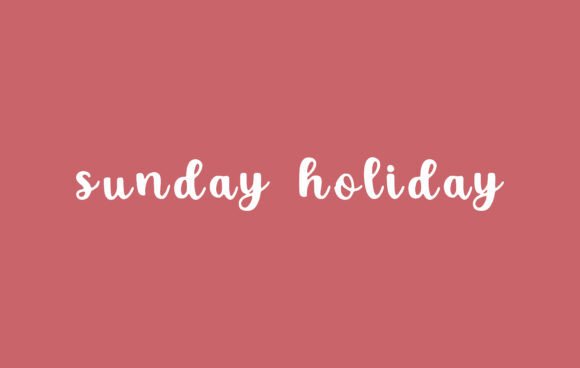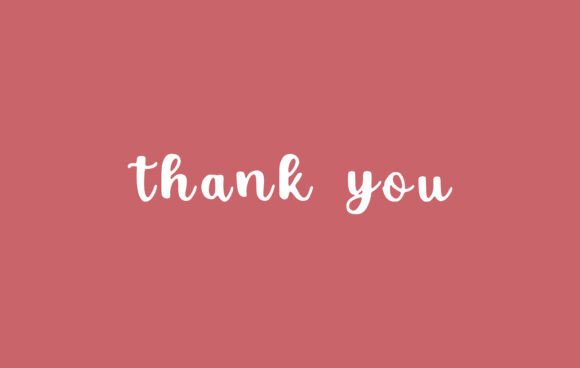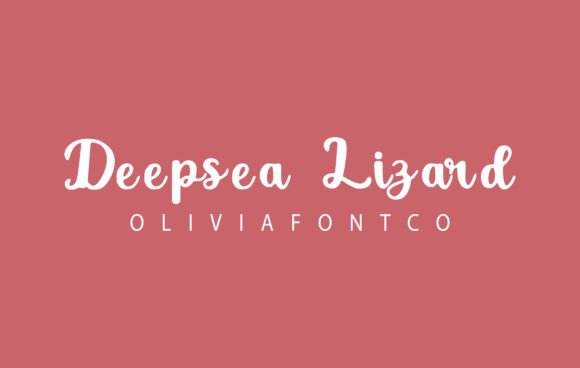
Introducing Deepsea Lizard Font: The Ultimate Handwritten Font for Creative Projects
Are you tired of using the same old fonts for your creative projects? Look no further than the Deepsea Lizard Font, an authentic handwritten font with a romantic touch that’s sure to take your designs to the next level. Expertly designed to be a true favorite among designers and crafters, this font is legible, versatile, and perfect for a wide range of applications.
The Characteristics of Deepsea Lizard Font
Deepsea Lizard Font is a beautifully crafted handwritten font that exudes a sense of romance and elegance. Its authentic, human touch makes it perfect for designs that require a personal and unique feel. The font is highly legible, making it suitable for use as both title and body text. Whether you’re working on a magazine headline, social media post, branding project, wedding invitation, or card, Deepsea Lizard Font is sure to make a lasting impression.
What Makes Deepsea Lizard Font So Special?
So, what sets Deepsea Lizard Font apart from other fonts on the market? Here are just a few reasons why this font is a cut above the rest:
• Authentic Handwritten Style: Deepsea Lizard Font is a genuine handwritten font, carefully crafted to capture the nuances and imperfections of human handwriting.
• Romantic Touch: This font has a certain je ne sais quoi that adds a romantic and whimsical touch to any design.
• High Legibility: Despite its ornate and cursive nature, Deepsea Lizard Font is highly legible, making it perfect for use in a variety of contexts.
• Versatility: Whether you’re working on a digital project or a print design, Deepsea Lizard Font is versatile enough to adapt to any style or format.
Deepsea Lizard Font is an incredibly versatile font that can be used in a wide range of design applications, including:
• Magazine Headlines: Add a touch of elegance and sophistication to your magazine headlines with Deepsea Lizard Font.
• Social Media: Stand out on social media with eye-catching graphics and posts that showcase your brand’s personality.
• Branding: Use Deepsea Lizard Font to create a unique and memorable brand identity that sets you apart from the competition.
• Wedding Invitations: Add a romantic and whimsical touch to your wedding invitations and stationery with this beautiful font.
• Cards and Greeting Cards: Create personalized and heartfelt cards and greeting cards that will make a lasting impression.
Tips for Using Deepsea Lizard Font
To get the most out of Deepsea Lizard Font, here are a few tips to keep in mind:
• Experiment with Different Sizes: Deepsea Lizard Font looks great in a variety of sizes, from large headlines to smaller body text.
• Play with Color: This font looks stunning in a range of colors, from bold and bright to soft and pastel.
• Mix and Match with Other Fonts: Deepsea Lizard Font pairs well with a variety of other fonts, so don’t be afraid to experiment and find the perfect combination for your design.